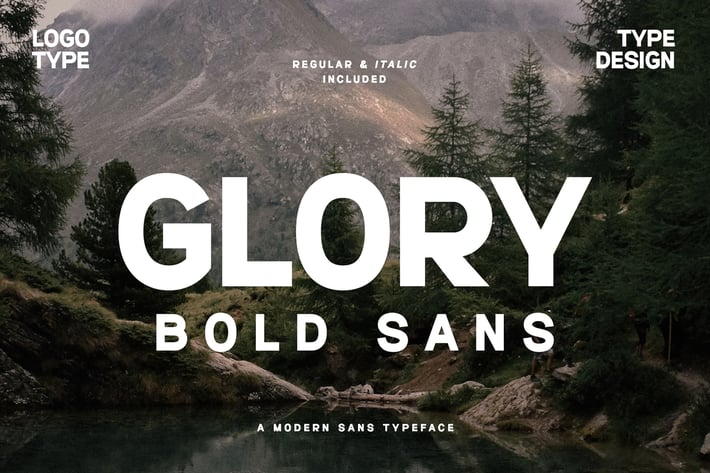
Glory Bold Sans Font Typeface
Glory Bold Sans is a powerful sans-serif font that commands attention while remaining clean and modern. Furthermore, it works well across a variety of design projects, such as branding, editorial layouts, web content, and packaging. As a result, it gives your text a bold presence without sacrificing clarity.
Moreover, this font features thick, confident letterforms. Consequently, it delivers excellent readability even at small sizes. Additionally, its straight lines and uniform strokes add a sleek, contemporary vibe. Thus, Glory Bold Sans suits a wide range of uses and adapts to many visual styles.
At the same time, it maintains a balanced structure. In fact, the design supports both headlines and block text with equal ease. Hence, you can rely on it for poster titles, logo marks, or even body paragraphs. And importantly, it holds its weight in both print and digital formats.
Key features include:
- Strong sans-serif style with consistent stroke widths
- Versatile use for both display and body text
- Extended language support for global use
- OpenType features including alternative glyphs and numeric styles
Why you’ll love Glory Bold Sans:
- Bold character that grabs attention
- High readability, even in dense text blocks
- Flexible use across print and web projects
- Simple customization with OpenType features
- Multilingual support for diverse audiences
- Clean design with a modern, fresh look
In addition, Glory Bold Sans has a friendly yet assertive tone. Thus, it helps your brand or message stand out. Furthermore, it keeps text sharp and consistent across all formats. Whether you design posters, websites, product packaging, or social banners, this font delivers strength and style.
Overall, Glory Bold Sans offers a perfect mix of power and simplicity. Therefore, it supports your visual design goals with clarity, impact, and versatility. Choose it to make your text speak with confidence and modern flair.
Moreover, this font features thick, confident letterforms. Consequently, it delivers excellent readability even at small sizes. Additionally, its straight lines and uniform strokes add a sleek, contemporary vibe. Thus, Glory Bold Sans suits a wide range of uses and adapts to many visual styles.
At the same time, it maintains a balanced structure. In fact, the design supports both headlines and block text with equal ease. Hence, you can rely on it for poster titles, logo marks, or even body paragraphs. And importantly, it holds its weight in both print and digital formats.
- Strong sans-serif style with consistent stroke widths
- Versatile use for both display and body text
- Extended language support for global use
- OpenType features including alternative glyphs and numeric styles
Why you’ll love Glory Bold Sans:
- Bold character that grabs attention
- High readability, even in dense text blocks
- Flexible use across print and web projects
- Simple customization with OpenType features
- Multilingual support for diverse audiences
- Clean design with a modern, fresh look
In addition, Glory Bold Sans has a friendly yet assertive tone. Thus, it helps your brand or message stand out. Furthermore, it keeps text sharp and consistent across all formats. Whether you design posters, websites, product packaging, or social banners, this font delivers strength and style.
Overall, Glory Bold Sans offers a perfect mix of power and simplicity. Therefore, it supports your visual design goals with clarity, impact, and versatility. Choose it to make your text speak with confidence and modern flair.